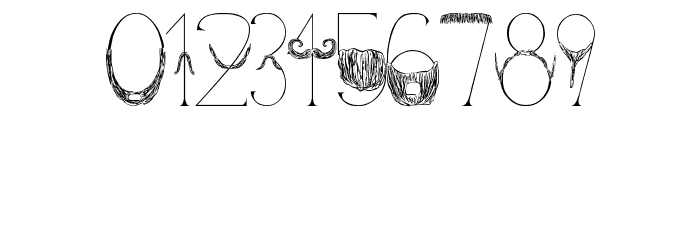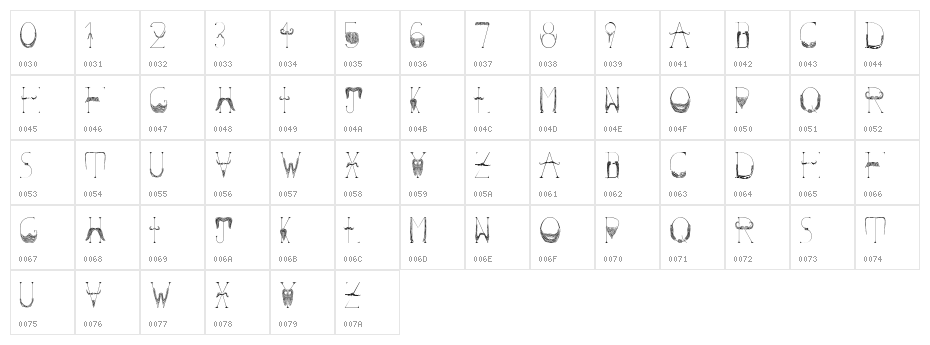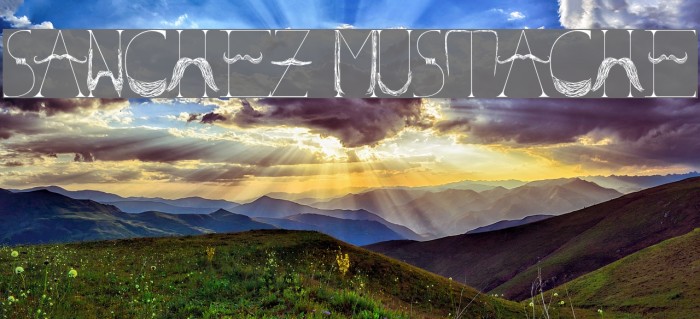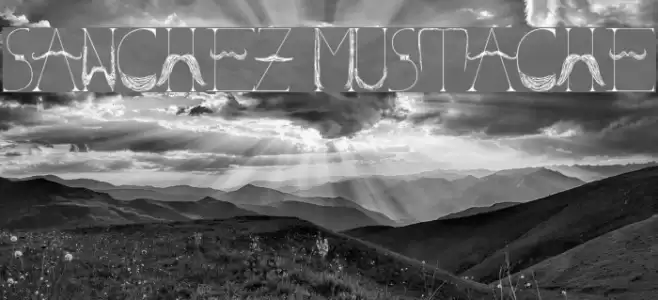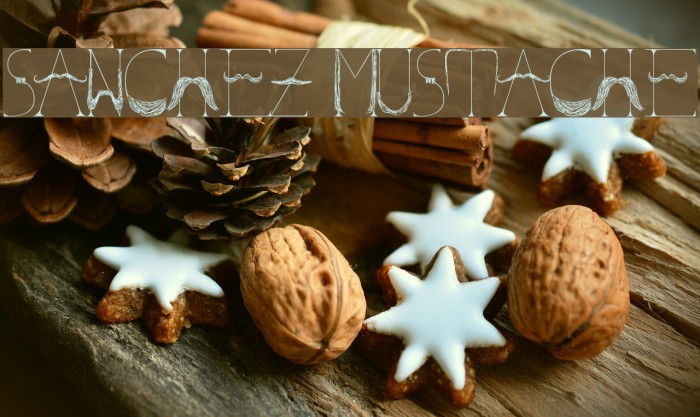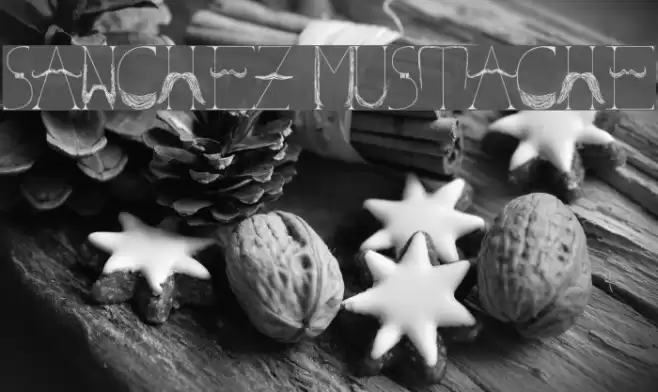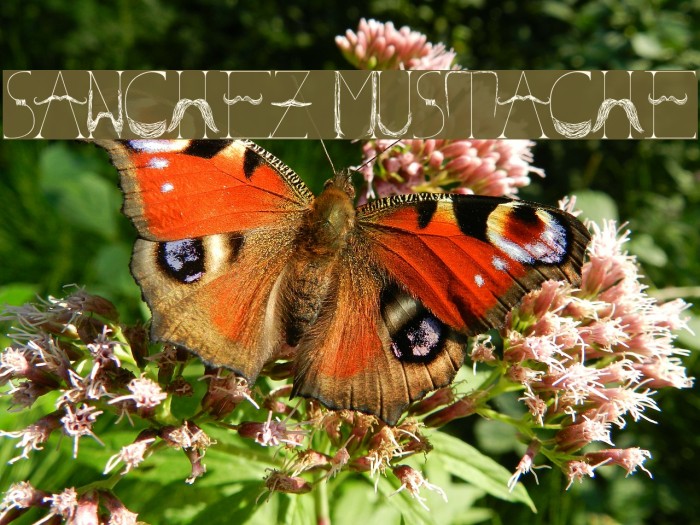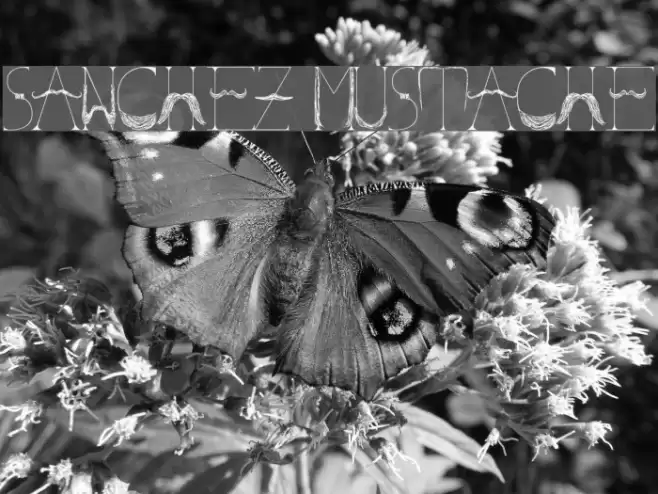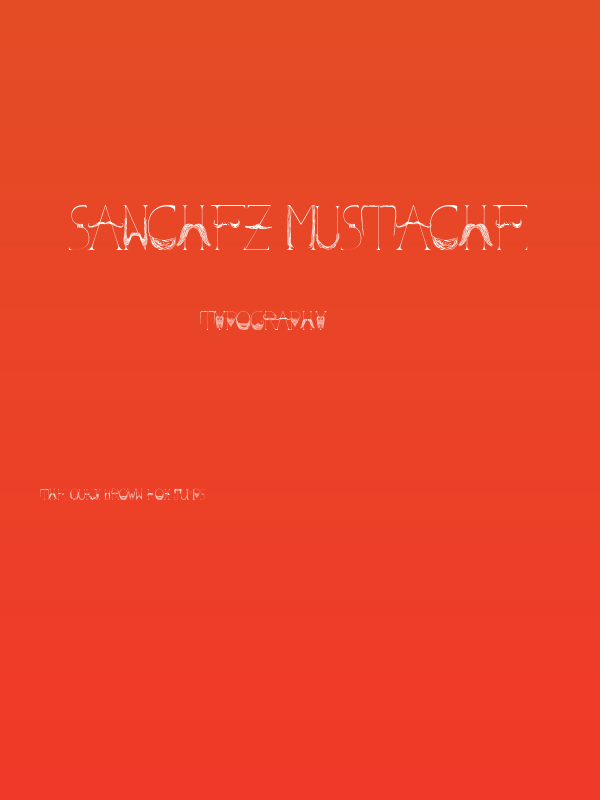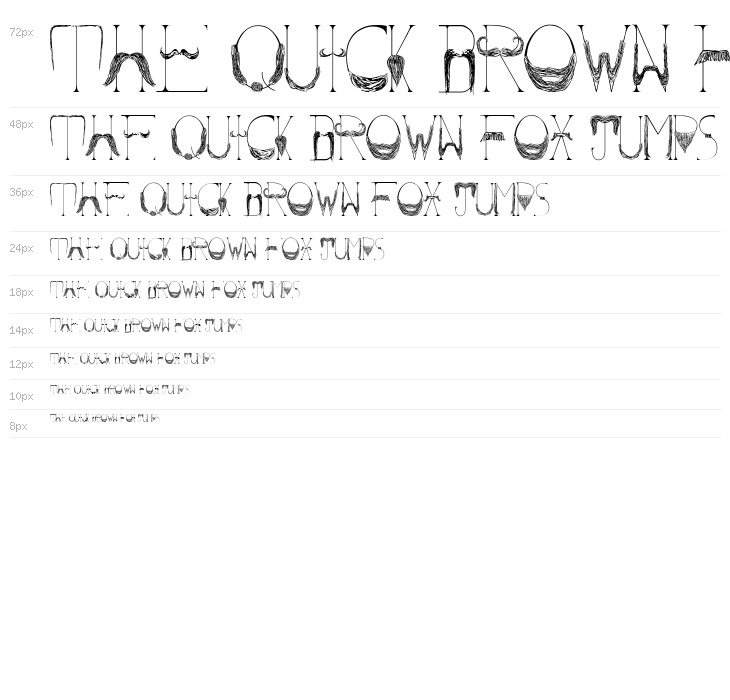
Sanchez Mustache Font
Sanchez Mustache Description
This font features a whimsical and playful design, incorporating mustache and beard elements into each character. The strokes are thin and delicate, with intricate detailing that adds a unique flair. The uppercase and lowercase letters maintain a consistent style, with the mustache motifs cleverly integrated into the letterforms. The numbers and special characters also follow this creative theme, making the font highly decorative and eye-catching. Its artistic and humorous nature makes it ideal for projects that require a touch of personality and charm.
| Proposed Projects | Ideal for playful branding, children's book covers, novelty posters, and humorous greeting cards. |